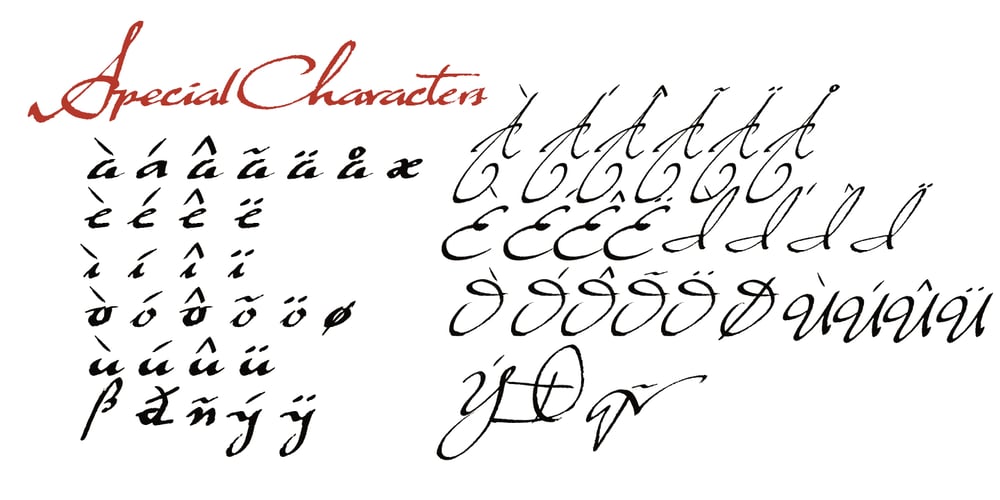
Schattig Font Family was designed by Alexis Carrillo and published by Aisiv. Schattig contains 1 styles and family package options. Schattig was designed by Alexis Carrillo, published by Aisiv. Schattig is ideal for titles, booklets, and old photograph-style designs, the font contains Basic Latin and Latin-1 (ISO 8859-1) characters, along with 53 different ligatures for more realism to your titles and designs.